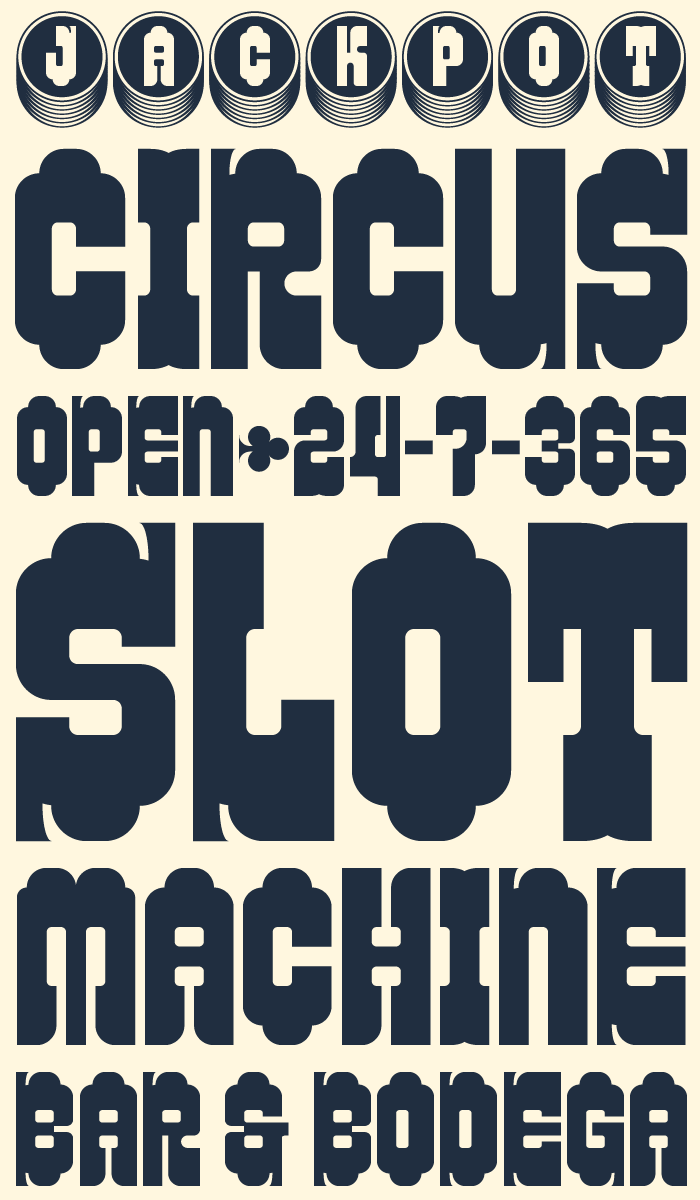
Hello again! Here's someting I started dabbling with years ago, but never finished or published. Fontstruct bricks and functions have evolved since then so I decided to give the ‘font’ a facelift and make it a little more complete (still no plethora of glyphs but I'm ok with it for now). Circus wild west meets casino and slot machines. Gambling, gunpowder, acrobats and jesters. Wash down with tequila.
Welcome back! Nice to see you here again! I'm with zephram about the slanted glyphs, I like them. What about a "complet" slant variation of the font?